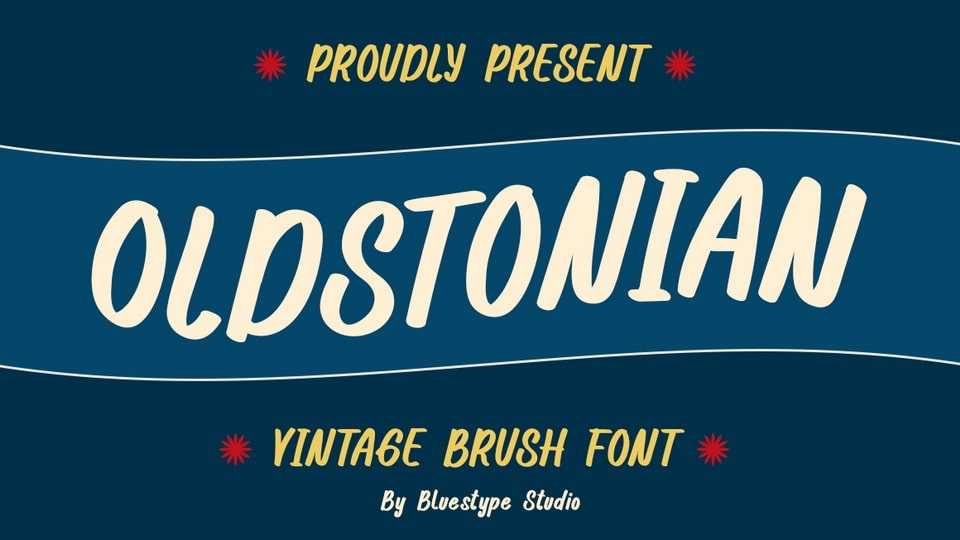
Download Oldstonian font, a bold and charismatic typeface that blends the raw, hand-painted texture of a brush font with the clean structure of a sans serif.